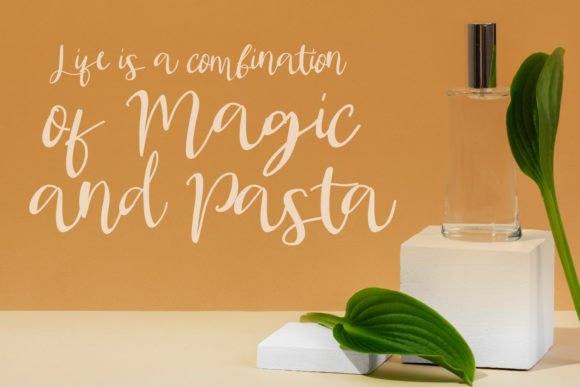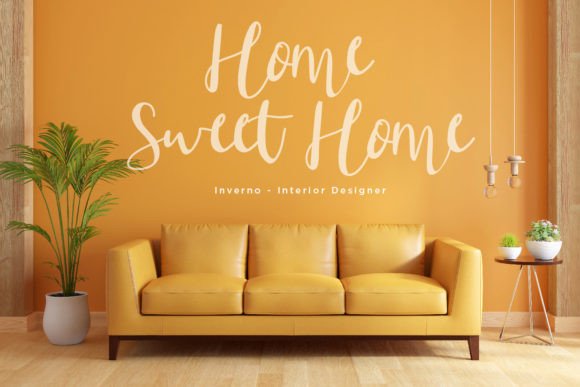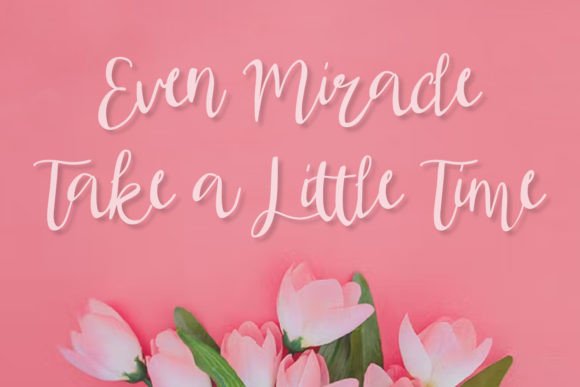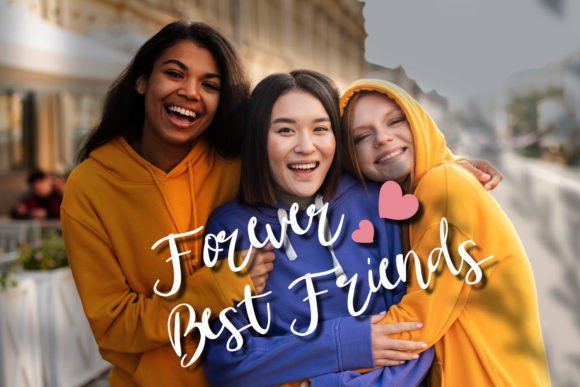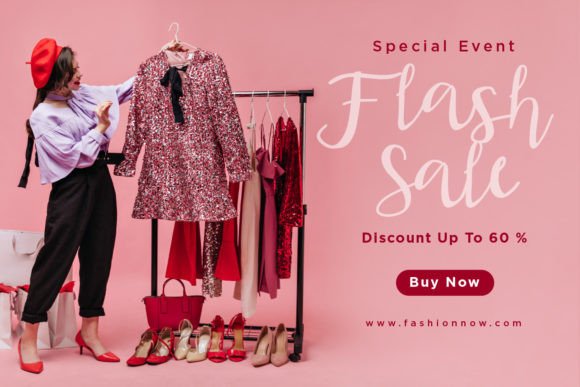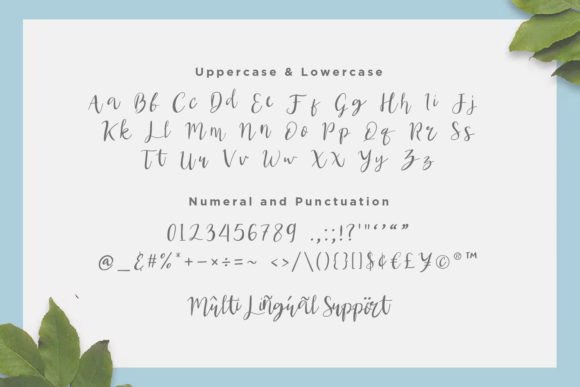
Introduction to Scolastica Font
Scolastica is a romantic and stylish script font that adds a touch of sophistication to any design.
With its elegant, flowing lines and delicate loops, each letter is a work of art that exudes charm and grace Perfect for wedding invitations, branding, and any project that needs a touch of romance and class.
Key Features of Scolastica Font
Why Choose Scolastica Font?
Scolastica Font offers exceptional quality and versatility, making it a valuable addition to your design toolkit. Whether you’re creating for personal projects or commercial use, Scolastica Font delivers professional results.